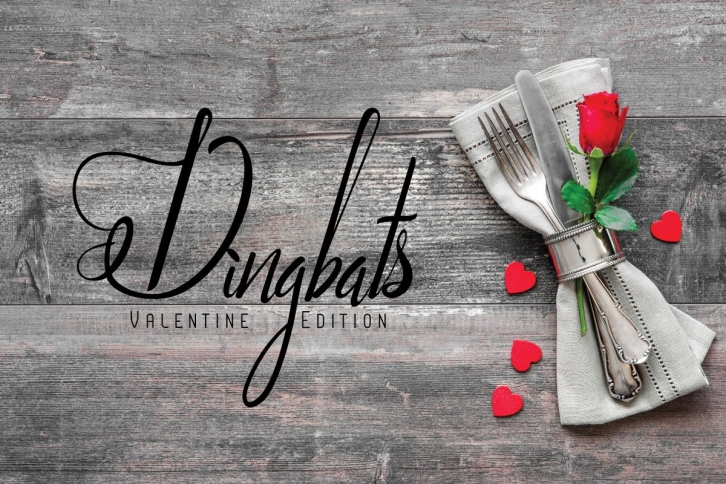
Dingbats Valentine Edition is a collection of love themes centred around Valentine’s Day. Features 26 Dingbats, there are fancy quotes with sweet words that are great for Valentine’s cards, posters, notes and many more designs!